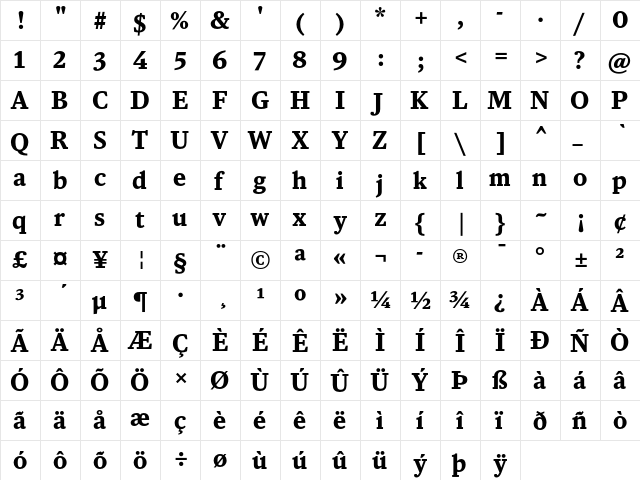
DB News Bold
Design Context for DB News Typeface
DB News offers clean, dependable letterforms without strong stylistic allegiance, making it a practical choice for designers who need flexibility. Its bold stroke weight gives it real presence on the page.
Pro Tip: Use DB News in both headline and body roles to test its range before committing to a single application.